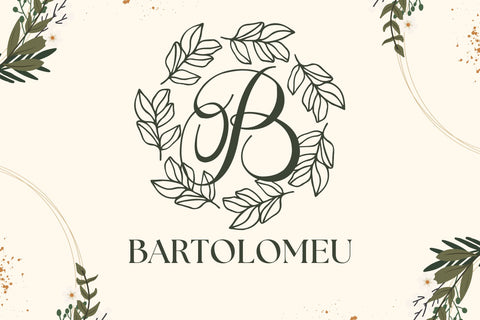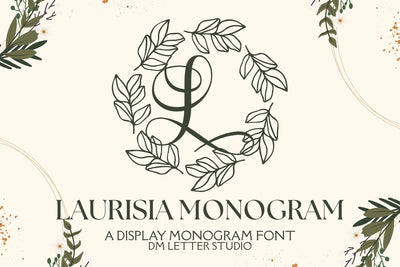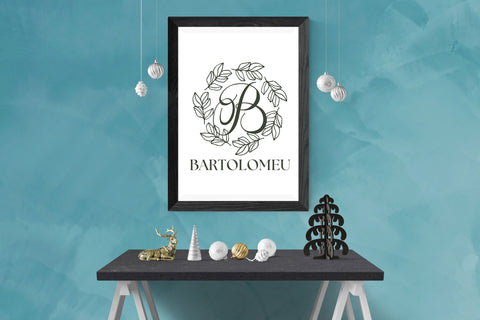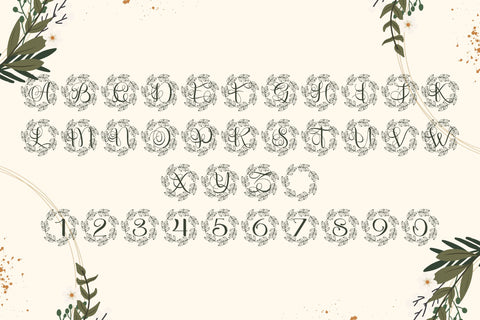
Laurisia Monogram
Meet Laurisia, the Monogram Font
Laurisia Monogram turns simple initials into graceful laurel-inspired emblems that feel elegant, romantic, and premium. The strokes are smooth and balanced, so letters stay clear at any size. Because counters remain open, tiny tags print crisp while large signage looks refined and formal. Use it for wedding suites, boutique logos, keepsake gifts, wax seals, stationery, and luxury packaging. As a result, your designs gain a timeless crest look that feels gift-ready right away.
Fast layouts with the Laurisia Monogram Font
Start with a generous initial and let white space frame it. After that, add names, dates, or short titles in a simple supporting font. Because Laurisia holds shape at small sizes, cards, cartons, acrylic signs, and tags print beautifully. In addition, the proportions pair well with wreath frames, laurel rings, oval borders, and thin dividers, so full sets come together in minutes. Finally, save palette pairs like sage & ivory, champagne & charcoal, navy & pearl, or cocoa & cream to repeat across product lines.
Creative uses and quick wins
- Logo seals, place cards, and certificate badges
- Wax seals, ribbon tags, and keepsake boxes
- Invitation covers, menu headings, and table numbers
- Favor stickers, tissue labels, and thank-you notes
Design tips for Laurisia Monogram Font